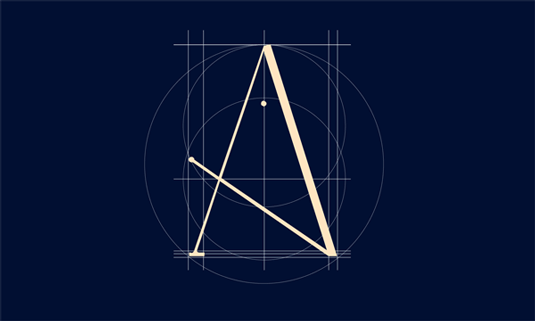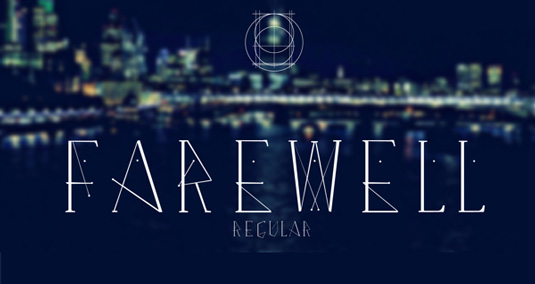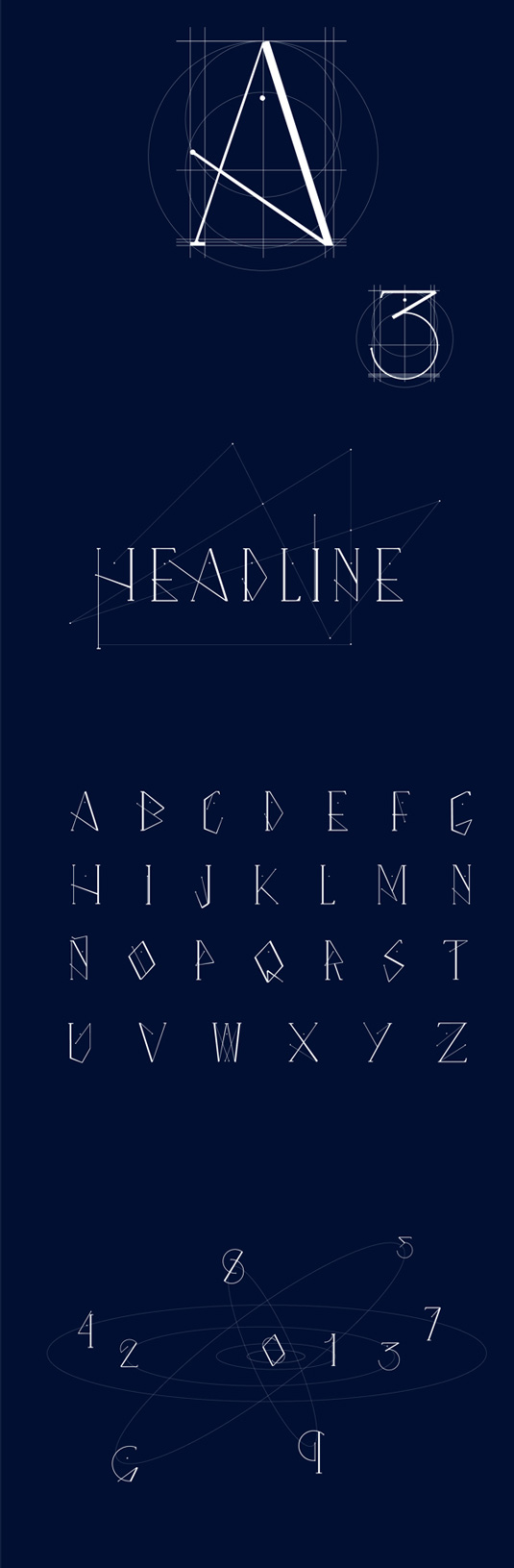
Font of the day: Farewell
Farewell by Marianela Grande
Argentina-based graphic designer and illustrator Marianela Grande is the designer behind our font of the day Farewell. Grande developed the typeface as a personal project, commenting that she designed it purely for 'headlines, capital letters and short texts'. A free typeface, all Grande asks for is a tweet in return for the download.